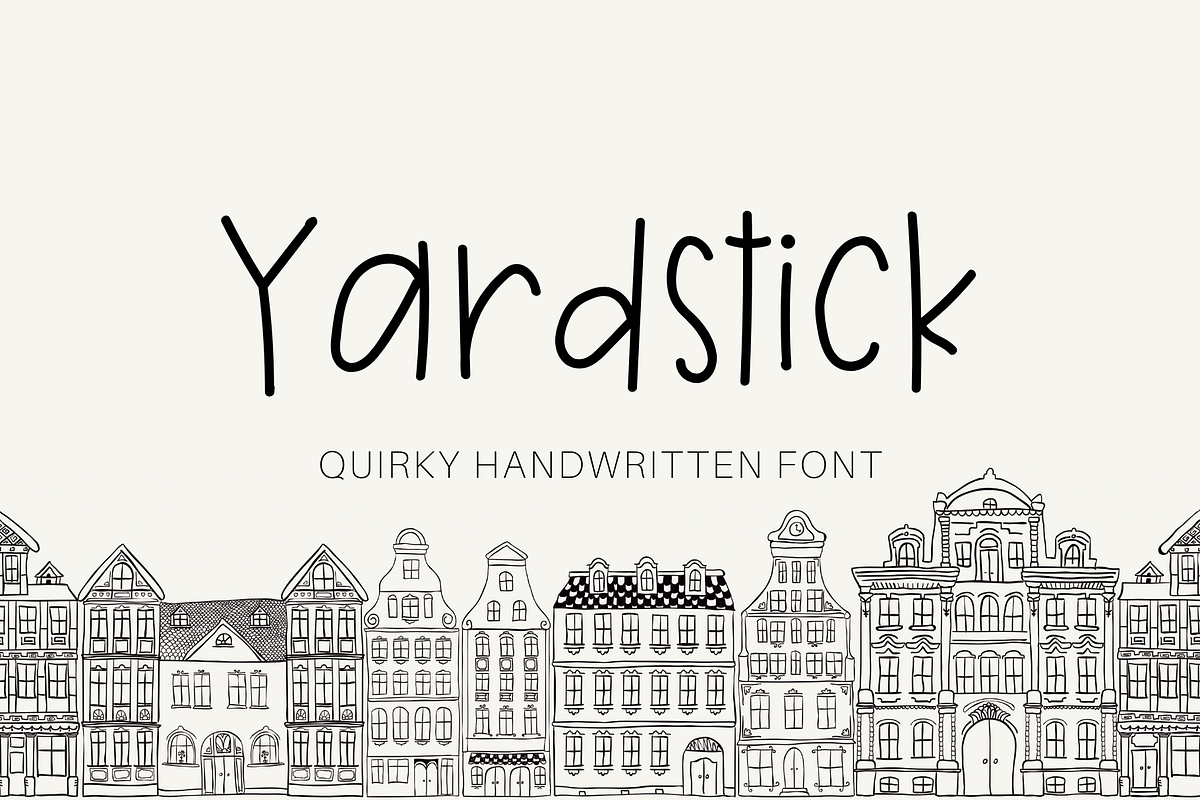
The Yardstick Fun and Quirky Font Free Download is a playful and unique typeface designed to add a touch of whimsy and character to your designs. Perfect for creating fun logos, posters, invitations, social media graphics, and more, this font brings a cheerful, light-hearted feel to any project. Please note, for commercial use, a license must be purchased. You can download it for free for testing purposes.
With its quirky letterforms and energetic design, the Yardstick Fun and Quirky Font Free Download is ideal for projects that need a bold, creative touch. Whether you're designing for a children's brand, an event promotion, or a creative campaign, this font will give your work a memorable and fun twist.